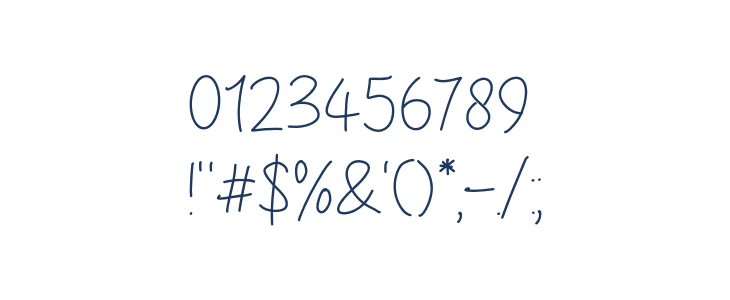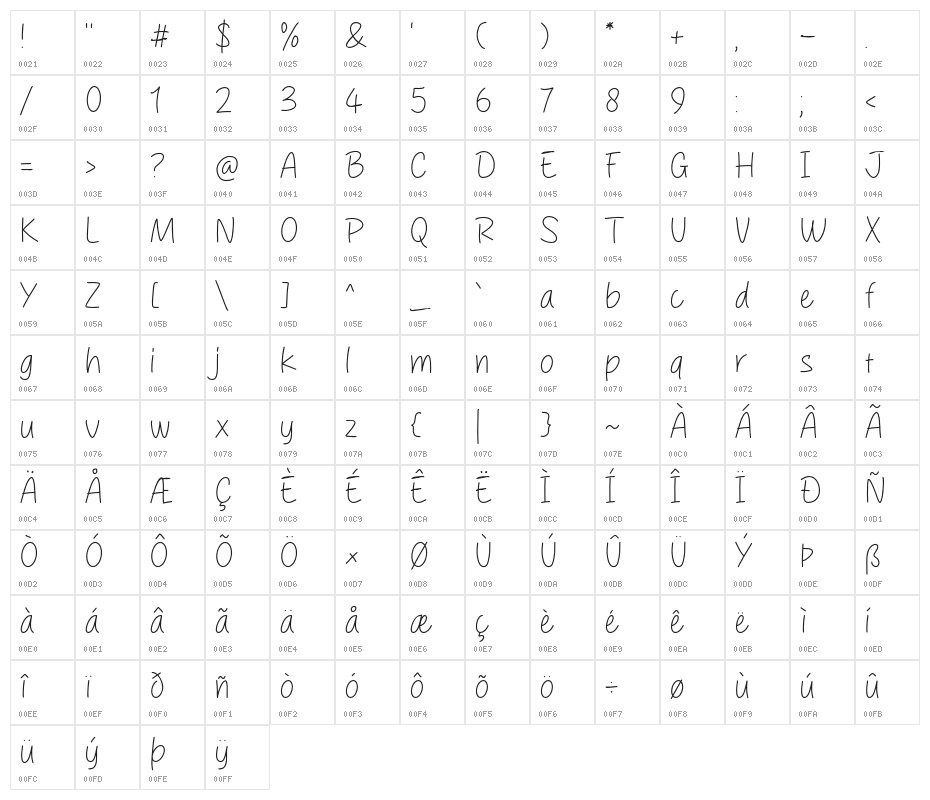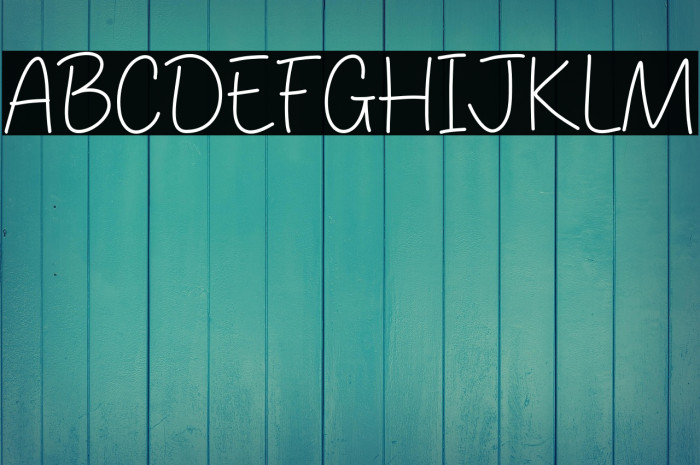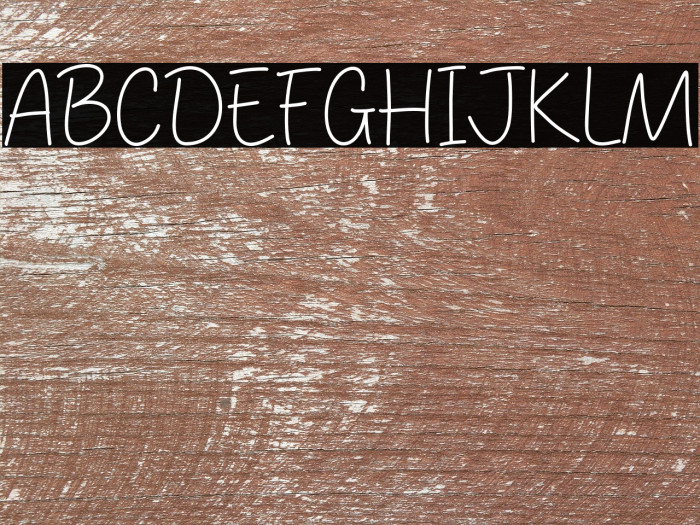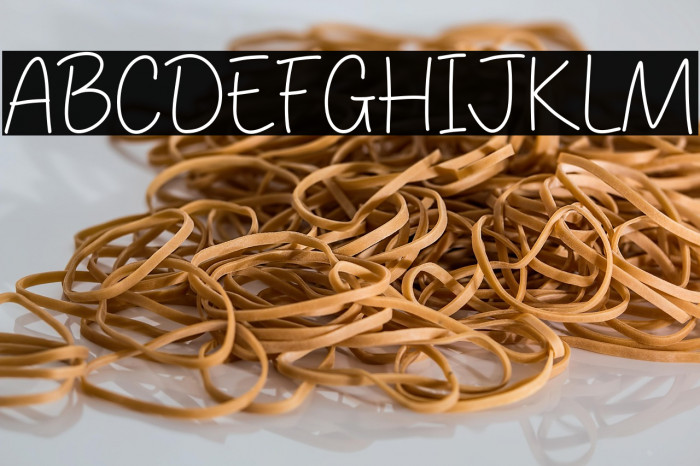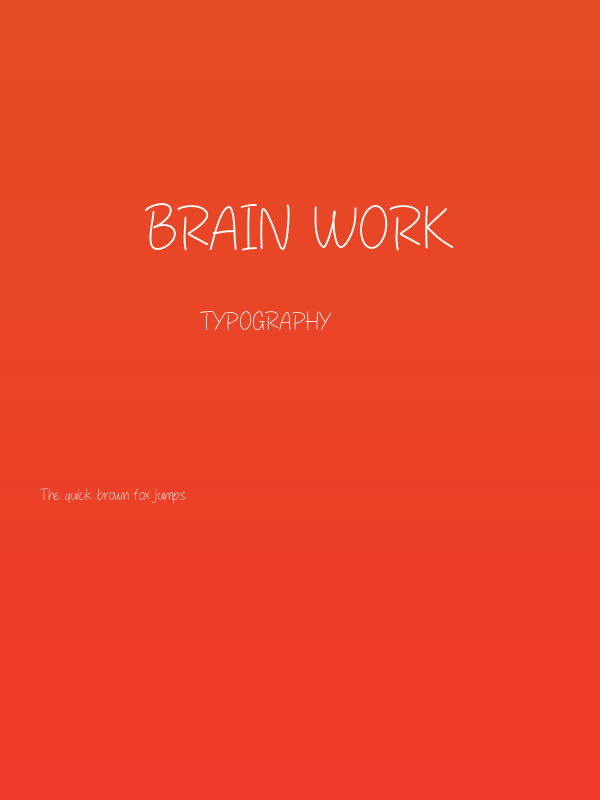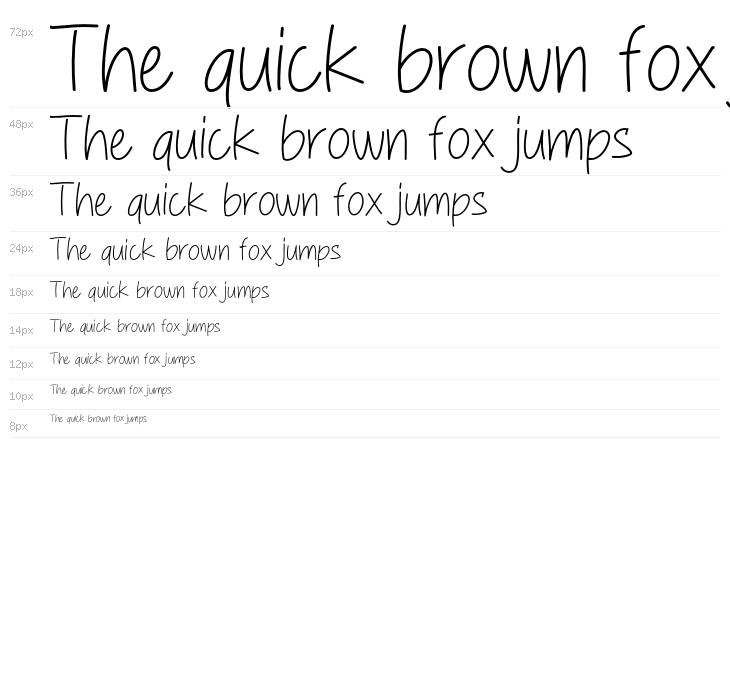
Brain Work Font
Brain Work Description
This font features a playful and casual handwritten style, characterized by its smooth, flowing lines and slightly irregular shapes. The uppercase letters are tall and slender, while the lowercase letters maintain a consistent height, giving the font a cohesive appearance. The numerals are clear and easy to read, matching the overall informal aesthetic. Special characters are included, maintaining the same playful and approachable feel. This font is perfect for projects that require a personal touch, such as greeting cards, invitations, or creative branding.
| Overall Style | Casual |
| Use Case | Headlines, Creative projects, Personal notes |
| Proposed Projects | Ideal for greeting cards, invitations, creative branding, and personal projects. |